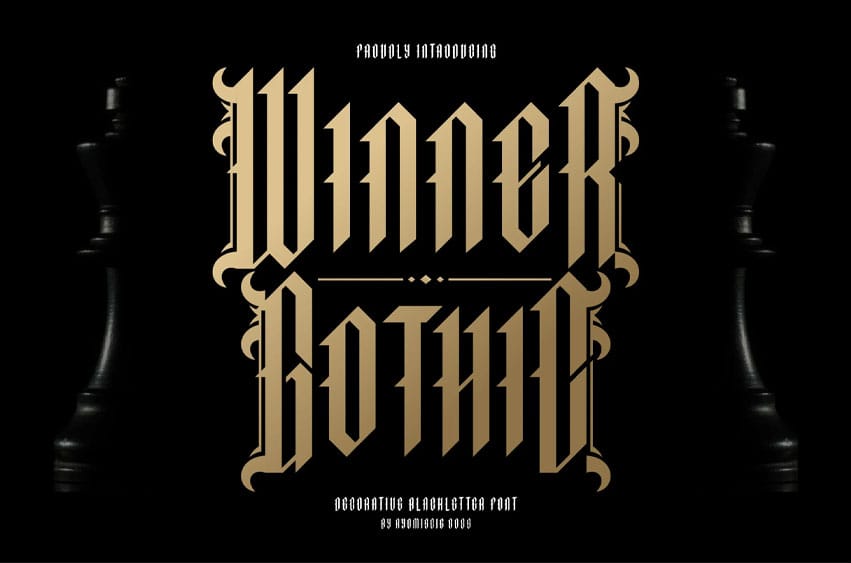
Winner Gothic Font Modern Font is a bold and authentic display font. The font is suitable for any branding project like logo, printing, esport, and many more.